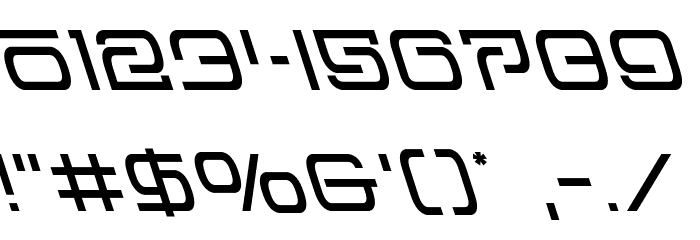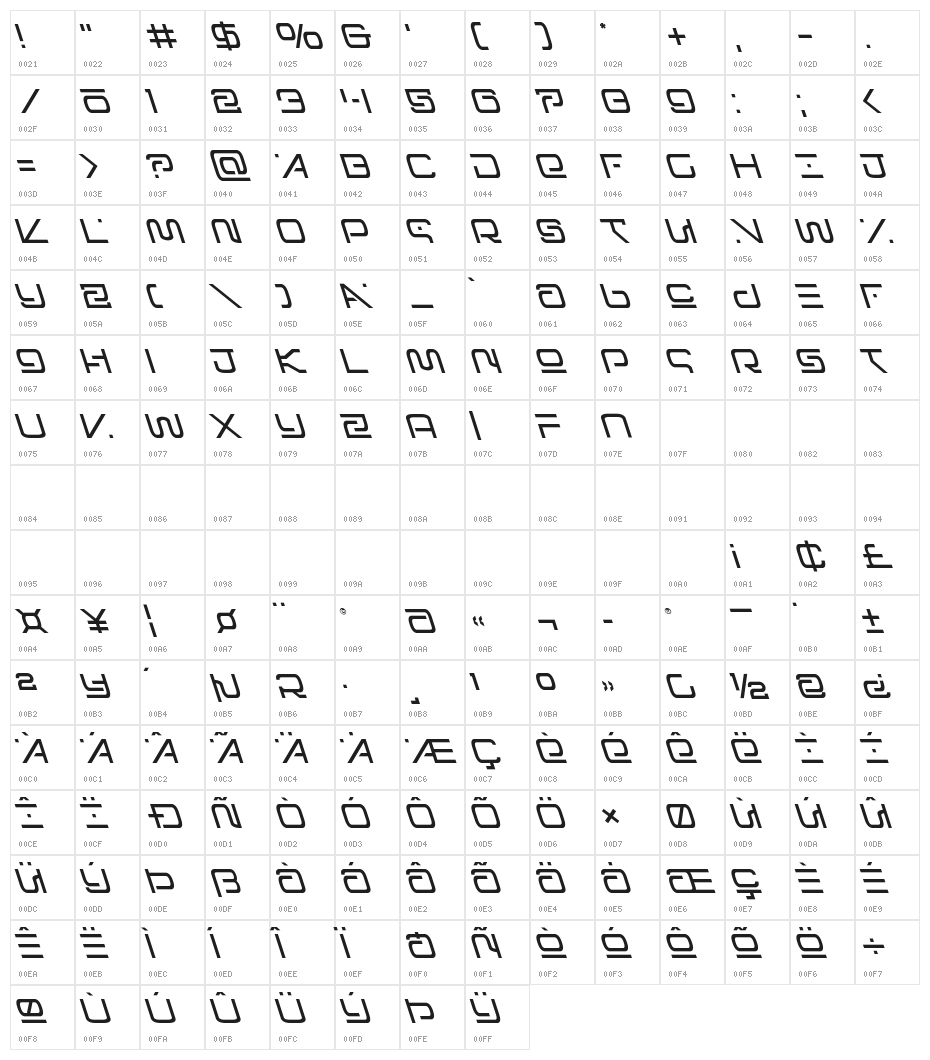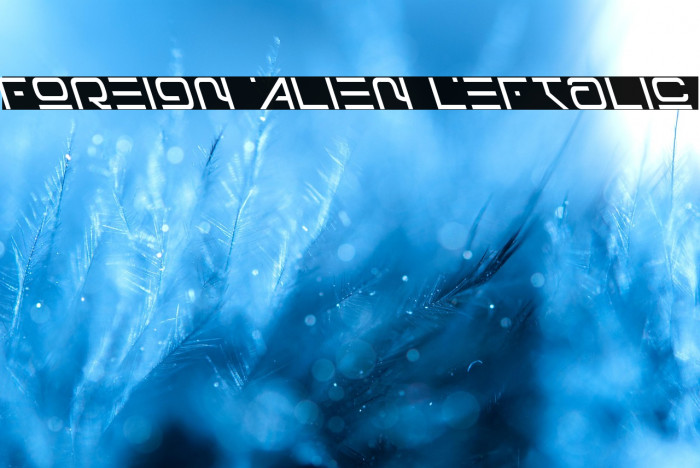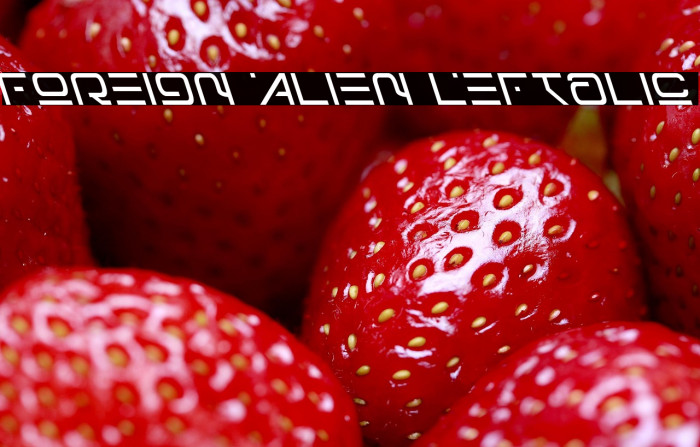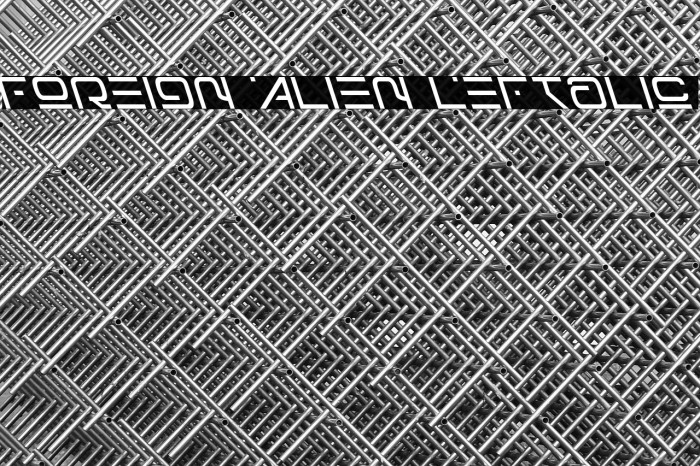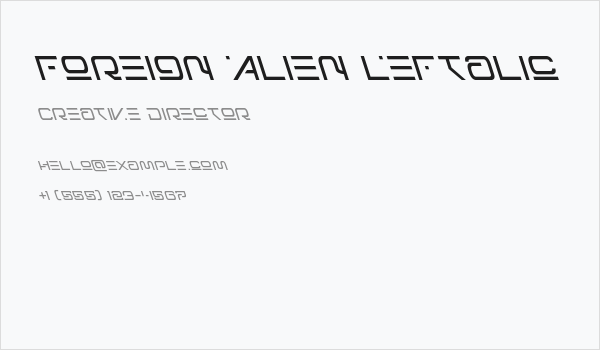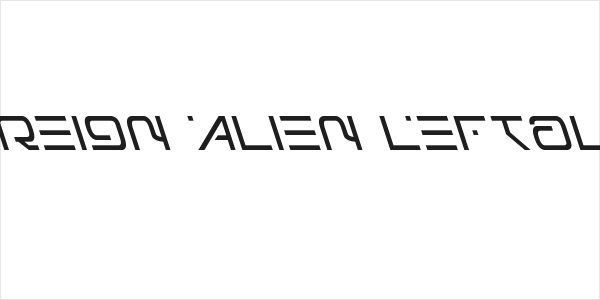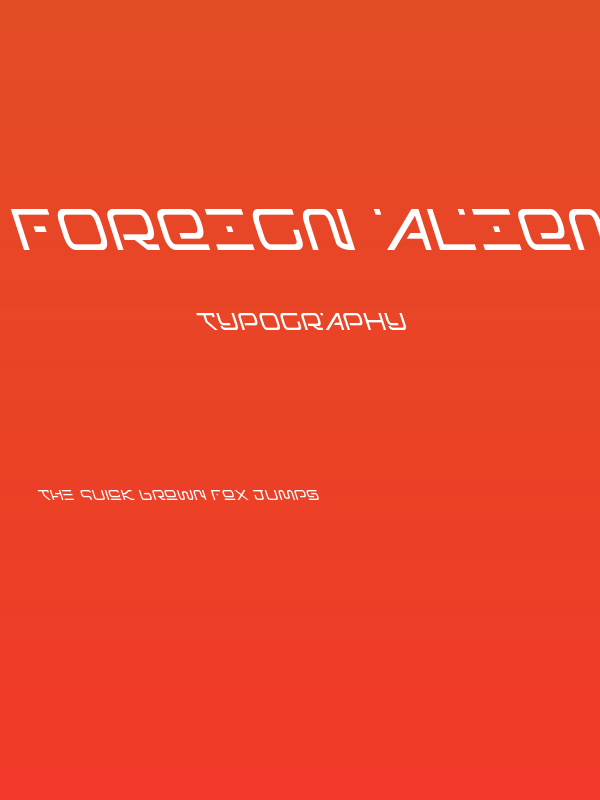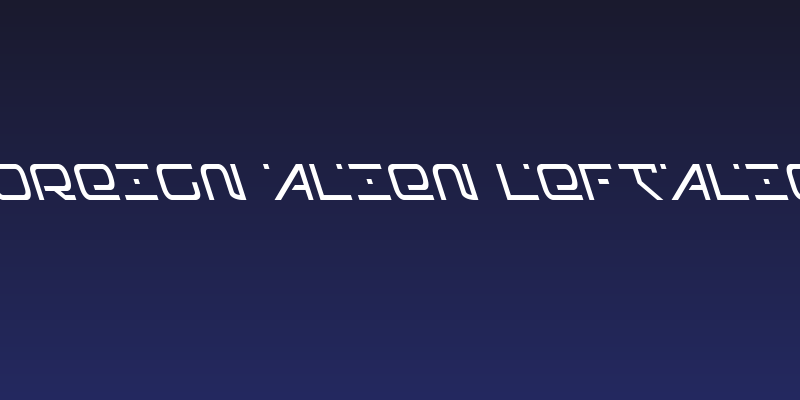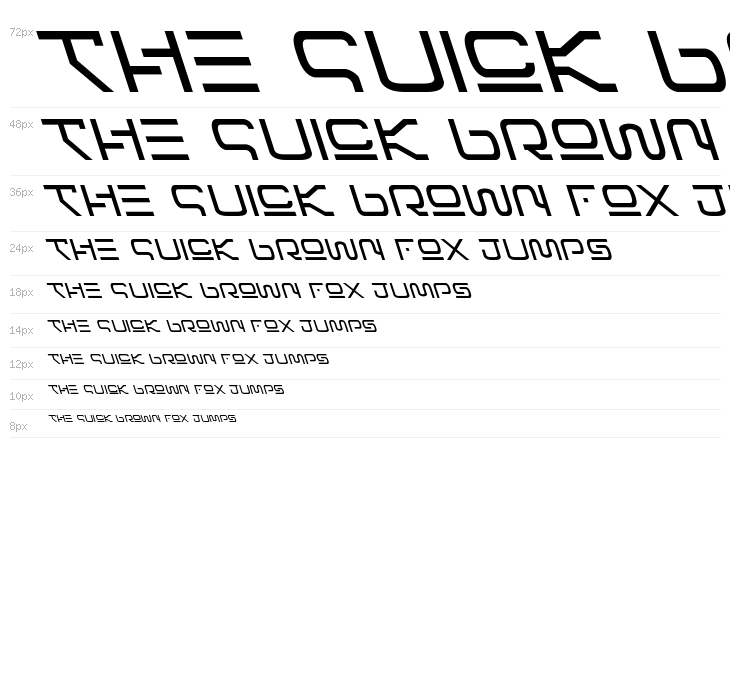
Foreign Alien Leftalic Font
Foreign Alien Leftalic Description
This font features a futuristic and geometric design, characterized by its angular and sharp edges. The letters are crafted with a unique blend of straight lines and curves, giving it a distinct, otherworldly appearance. The uppercase and lowercase letters maintain a consistent style, with a slight slant that adds a dynamic feel. The numerals and special characters follow the same design principles, ensuring uniformity across the font. Its bold and structured form makes it stand out, while the spacing between characters is balanced, providing readability despite its unconventional style.
Overall StyleFuturistic
Proposed ProjectsIdeal for sci-fi themed projects, video game interfaces, movie posters, and branding for tech companies.